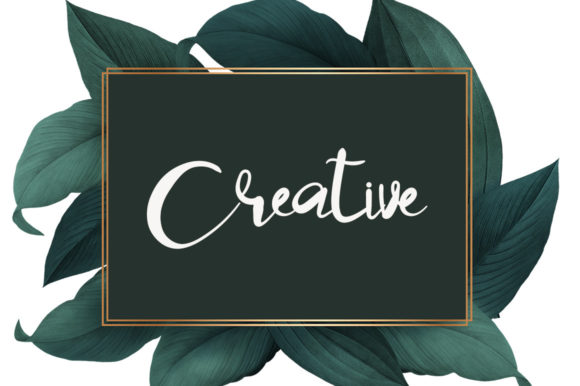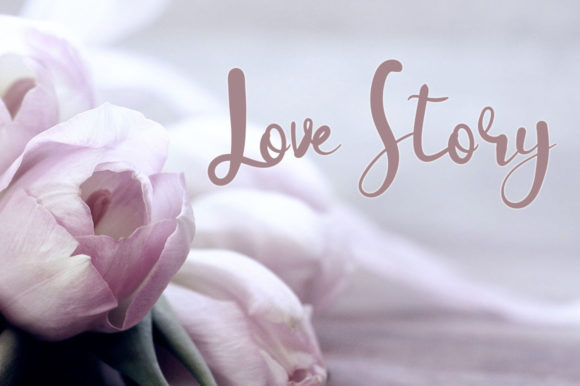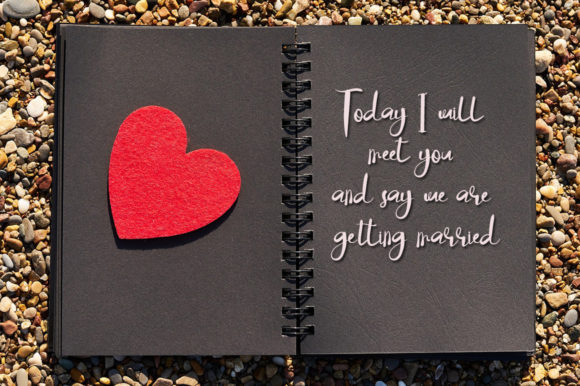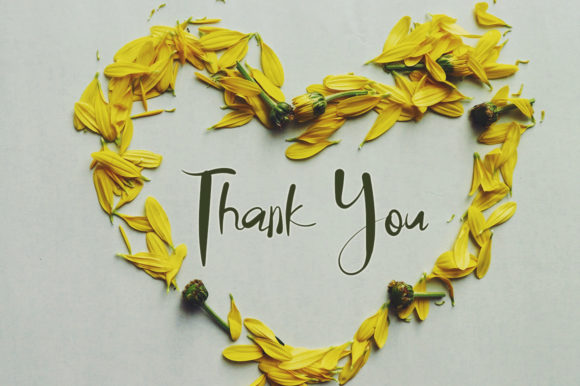
Introducing Flower Shower Font: The Perfect Addition to Your Design Projects
Are you a designer or crafter looking for a unique and eye-catching font to elevate your projects? Look no further than Flower Shower Font, a beautiful and whimsical handwritten font that’s sure to capture the attention of your audience. With its balanced and varied strokes, Flower Shower Font is the perfect addition to any design project, from DIY crafts to professional branding.
The Characteristics of Flower Shower Font
Flower Shower Font is a chic and elegant handwritten font that’s been carefully crafted to bring a touch of sophistication to your designs. Here are just a few of its key characteristics:
- Balanced strokes: Not too thin and not too thick, Flower Shower Font’s strokes are perfectly balanced to create a beautiful, harmonious look.
- Varied letterforms: Each letter in Flower Shower Font has its own unique character, adding a touch of whimsy and personality to your designs.
- Easy to read: Despite its elegant and cursive nature, Flower Shower Font is incredibly easy to read, making it perfect for use in a variety of design projects.
What Can I Use Flower Shower Font For?
Flower Shower Font is an incredibly versatile font that can be used in a wide range of design projects, including:
- DIY crafts: Add a touch of elegance to your DIY crafts, such as handmade cards, gift tags, and scrapbooking projects.
- Branding and marketing: Use Flower Shower Font to create beautiful and eye-catching branding materials, such as logos, business cards, and brochures.
- Wedding and event planning: Create stunning wedding invitations, place cards, and other event materials with Flower Shower Font.
- Social media graphics: Add a touch of personality to your social media graphics, such as Instagram posts and Facebook graphics.
Why Choose Flower Shower Font?
With so many fonts to choose from, why should you choose Flower Shower Font for your design projects? Here are just a few reasons:
- Unique and eye-catching: Flower Shower Font is a truly unique and eye-catching font that’s sure to capture the attention of your audience.
- High-quality design: Flower Shower Font has been carefully crafted to ensure that it’s of the highest quality, with beautiful and balanced strokes.
- Easily readable: Despite its elegant nature, Flower Shower Font is incredibly easy to read, making it perfect for use in a variety of design projects.
Tips for Using Flower Shower Font
Here are a few tips for getting the most out of Flower Shower Font:
- Use it sparingly: While Flower Shower Font is beautiful, it can be overwhelming if used too much. Use it sparingly to add a touch of elegance to your designs.
- Pair it with other fonts: Flower Shower Font pairs beautifully with other fonts, such as sans-serif fonts and script fonts. Experiment with different pairings to find the one that works best for your design.
- Experiment with colors: Flower Shower Font looks beautiful in a variety of colors, from bold and bright to soft and pastel. Experiment with different colors to find the one that works best for your design.
If you’re looking for a beautiful and unique font to elevate your design projects, look no further than Flower Shower Font. With its balanced and varied strokes, this font is sure to capture the attention of your audience and add a touch of elegance to your designs. Whether you’re a designer, crafter, or DIY enthusiast, Flower Shower Font is the perfect addition to your design toolkit.